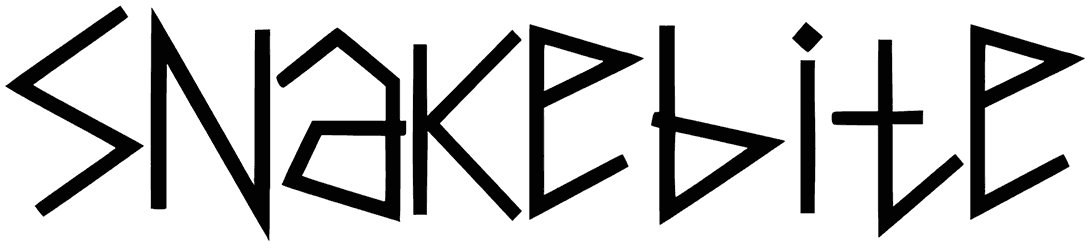
Snakebite Font
It would be cool and attractive if, in your upcoming design, you try intimate and geometric lettering to enrich your imagination. Snakebite as a runic font in a hand-made outward except for numbers appears for free.
This triangular font can be praised for its captivating tune and put into any postcards, magazines, covers, and the like. If you love this kind of design, set this artwork on your projects and reap the consequences.